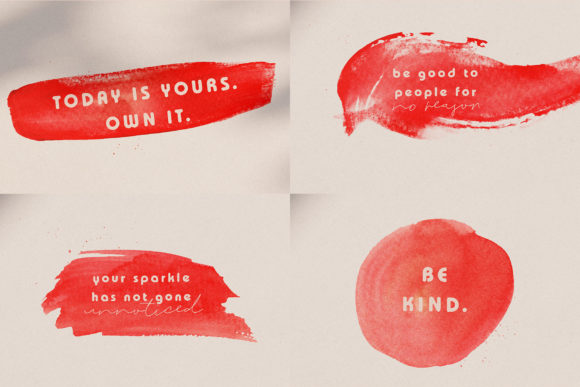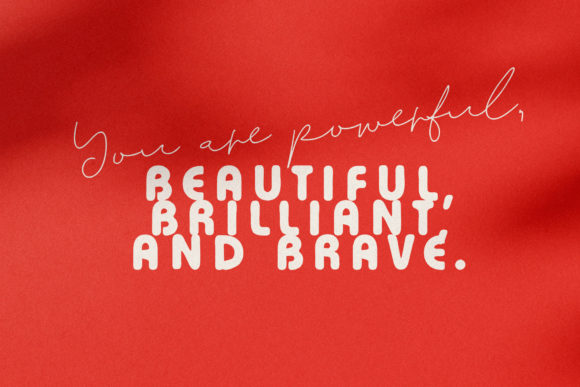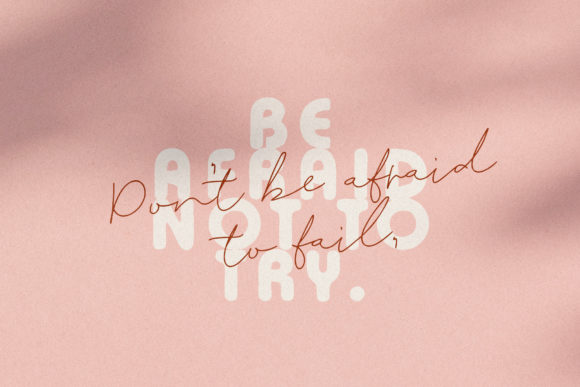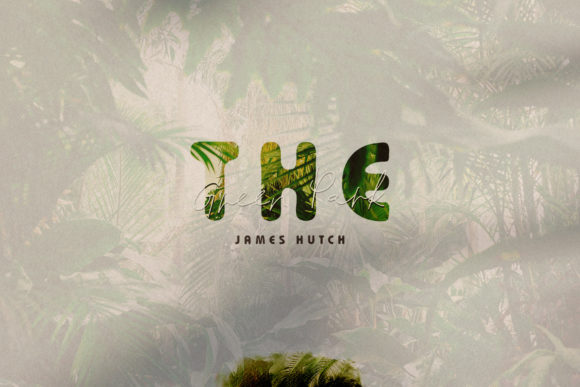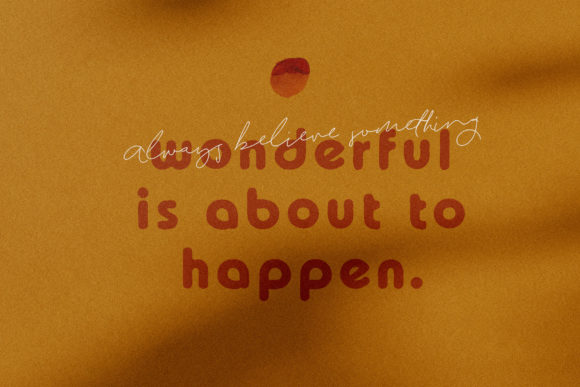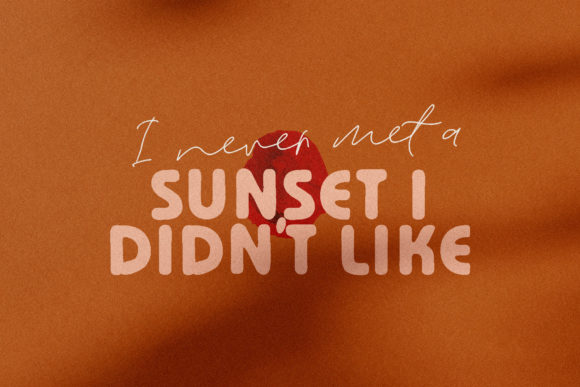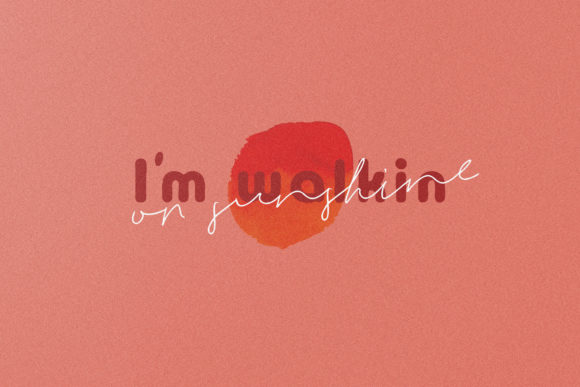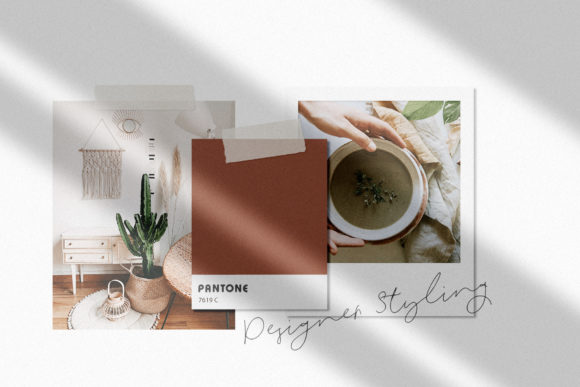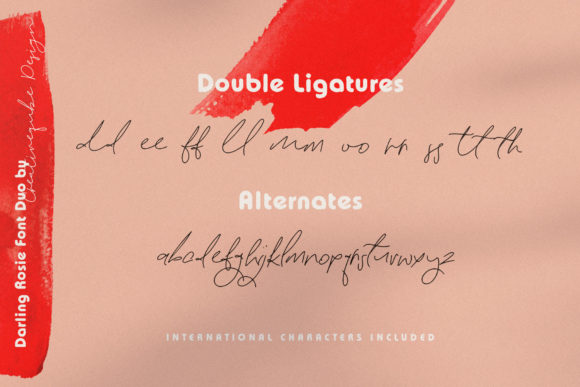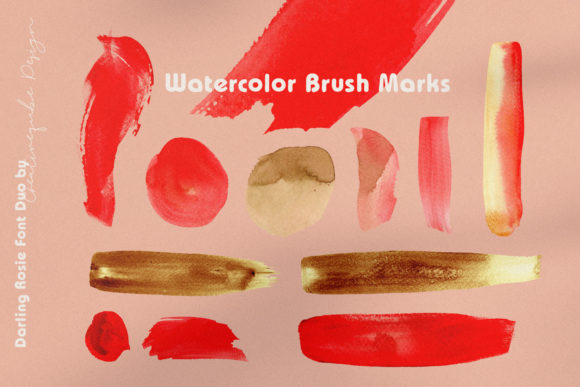
Darling Rosie Font
About Darling Rosie Font
Darling Rosie is a stunning and slender script font that captivates with its exquisite style. Fall in love with its ravishing aesthetic and leverage its beauty to craft gorgeous wedding invitations, elegant stationary art, eye-catching social media posts, and much more!
The slim and graceful design of Darling Rosie lends itself perfectly to the creation of breathtaking wedding invitations. Its elegant script adds a touch of romance and sophistication, setting the tone for a truly special celebration.
For stationary art, Darling Rosie proves to be an ideal choice, bringing a delicate and refined quality to your designs. Whether applied to cards, art prints, or other paper goods, the font’s gorgeous appearance enhances the overall visual appeal.
Social media posts become eye-catching and stylish when adorned with Darling Rosie. Its slender script adds a touch of glamour, making your content stand out on various platforms and capturing the attention of your audience.
The versatility of Darling Rosie extends to various design projects, allowing you to explore creative possibilities. Whether used for branding, packaging, or any other visual communication, this font brings an element of sophistication that elevates the overall aesthetic.
In summary, Darling Rosie is more than just a font; it’s a design asset that adds a touch of gorgeousness to your creative projects. Whether you’re working on wedding invitations, stationary art, social media posts, or other design endeavors, this slim script font is sure to enhance the beauty of your work with its ravishing style.